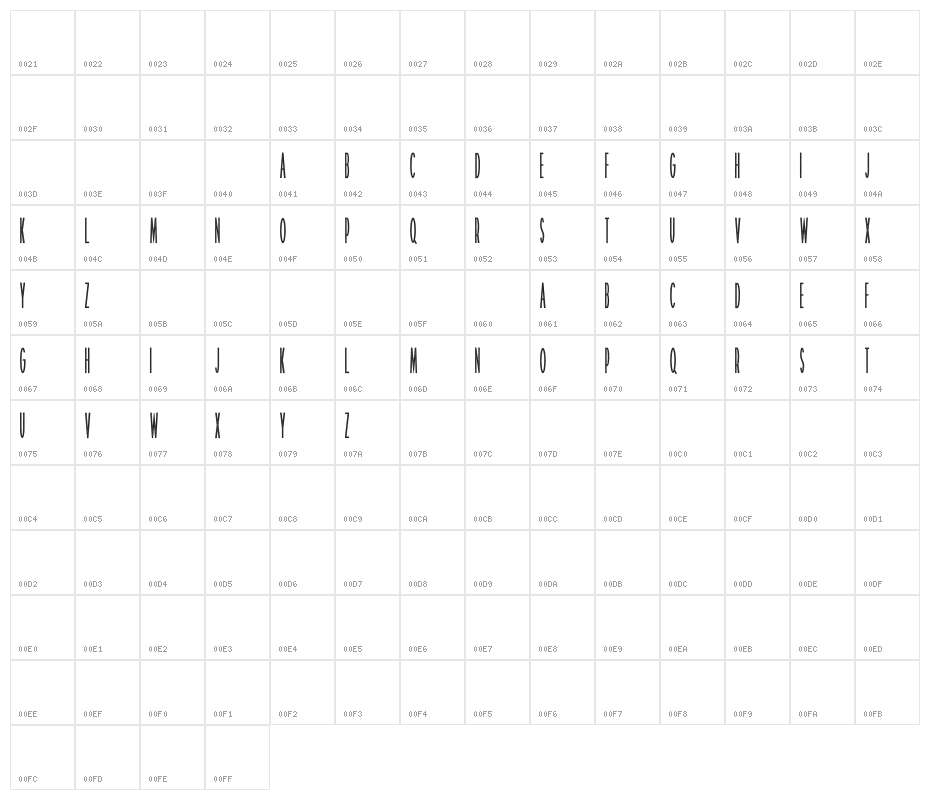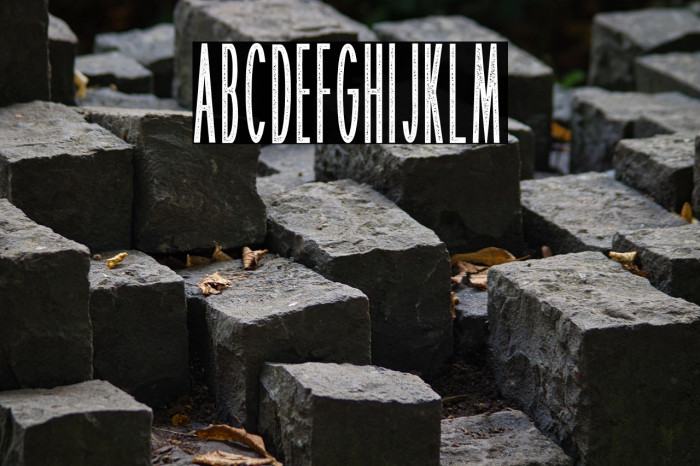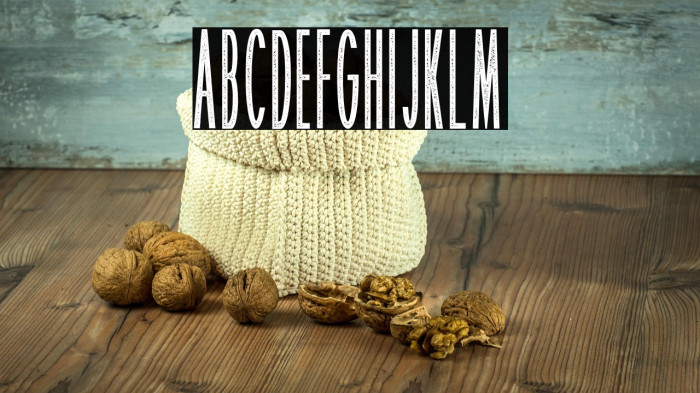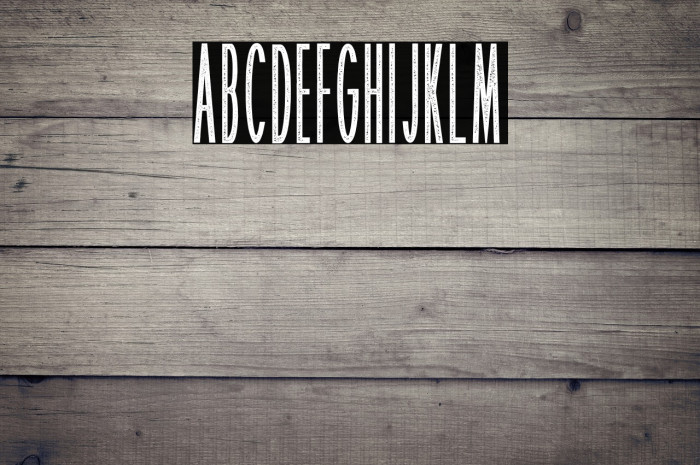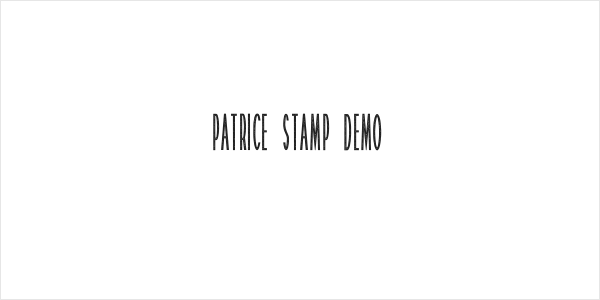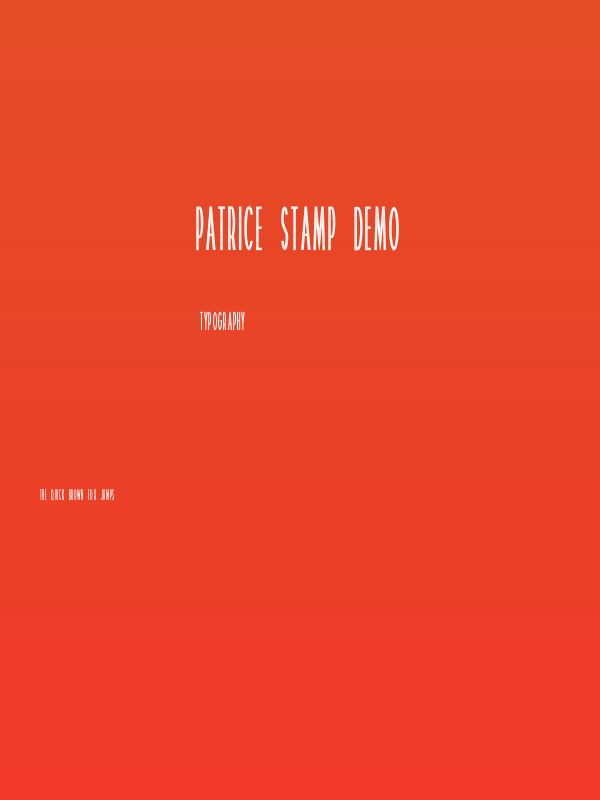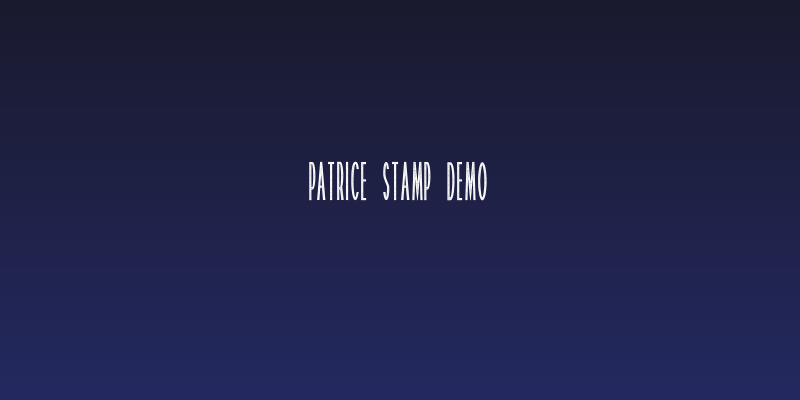
Patrice Stamp Demo Font
Patrice Stamp Demo Description
This font features a bold and condensed style with a distinct stamped texture, giving it a rugged and vintage appearance. The uppercase letters are tall and narrow, with a consistent height that contributes to its uniform look. The texture within each character mimics the effect of ink pressed onto paper, creating a slightly distressed and tactile feel. This characteristic makes it ideal for projects that require a handcrafted or retro aesthetic. The font's strong vertical emphasis and narrow width make it suitable for creating impactful headlines or titles, where space is limited but a strong visual presence is needed.
| Proposed Projects | Ideal for posters, branding, packaging, and any design requiring a vintage or handcrafted look. |